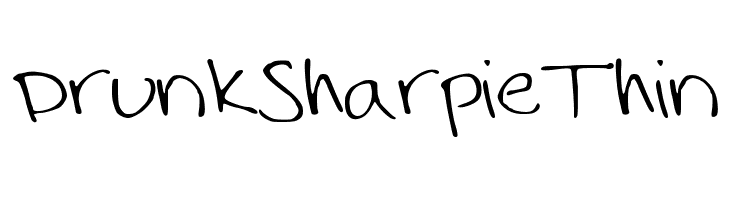
A modern, italic sans-serif font with medium weight and normal spacing.
( Fonts by Istiko Rahadi )
A bold, rounded font with a playful and modern style.
( Fonts by Anita Wainer - www.jamondelmar.com )
A Beatles-themed decorative dingbat font with illustrations and icons.
( JBFoundry - Jean Boyault - jean.boyault.pagesperso-orange.fr/ )
A modern, playful sans-serif font with clean lines and rounded edges.
( Vladimir Nikolic - www.coroflot.com/vladimirnikolic )
A modern, rounded font with a playful and geometric style.
( Fonts by www.typodermicfonts.com - Ray Larabie )
A bold, geometric font with a military-inspired, structured design.
A bold, decorative font with a playful, three-dimensional style.
( Fonts by Des Gomez )
A playful, hand-drawn font with bold, uneven strokes and a whimsical style.
( Fonts by Levi Halmos )
A bold, angular serif font with a modern and vintage blend, ideal for dramatic headlines.